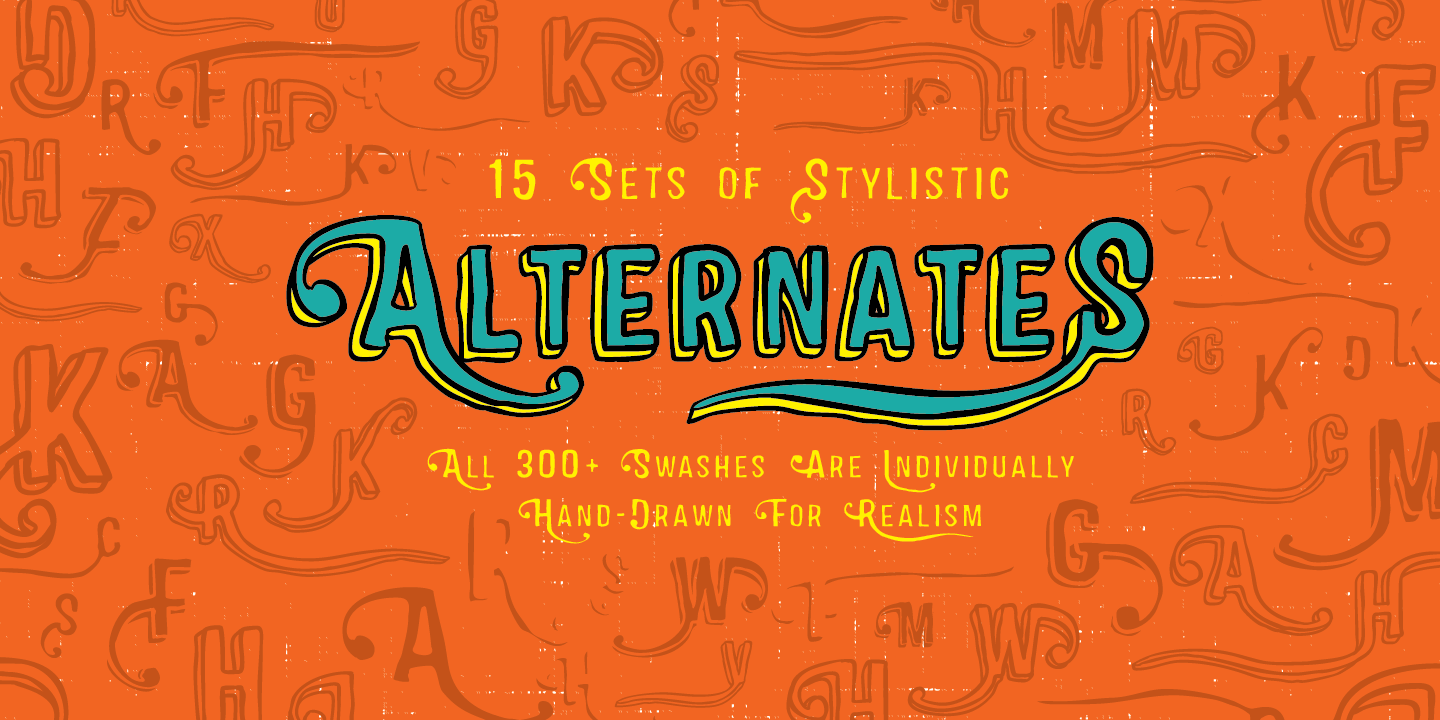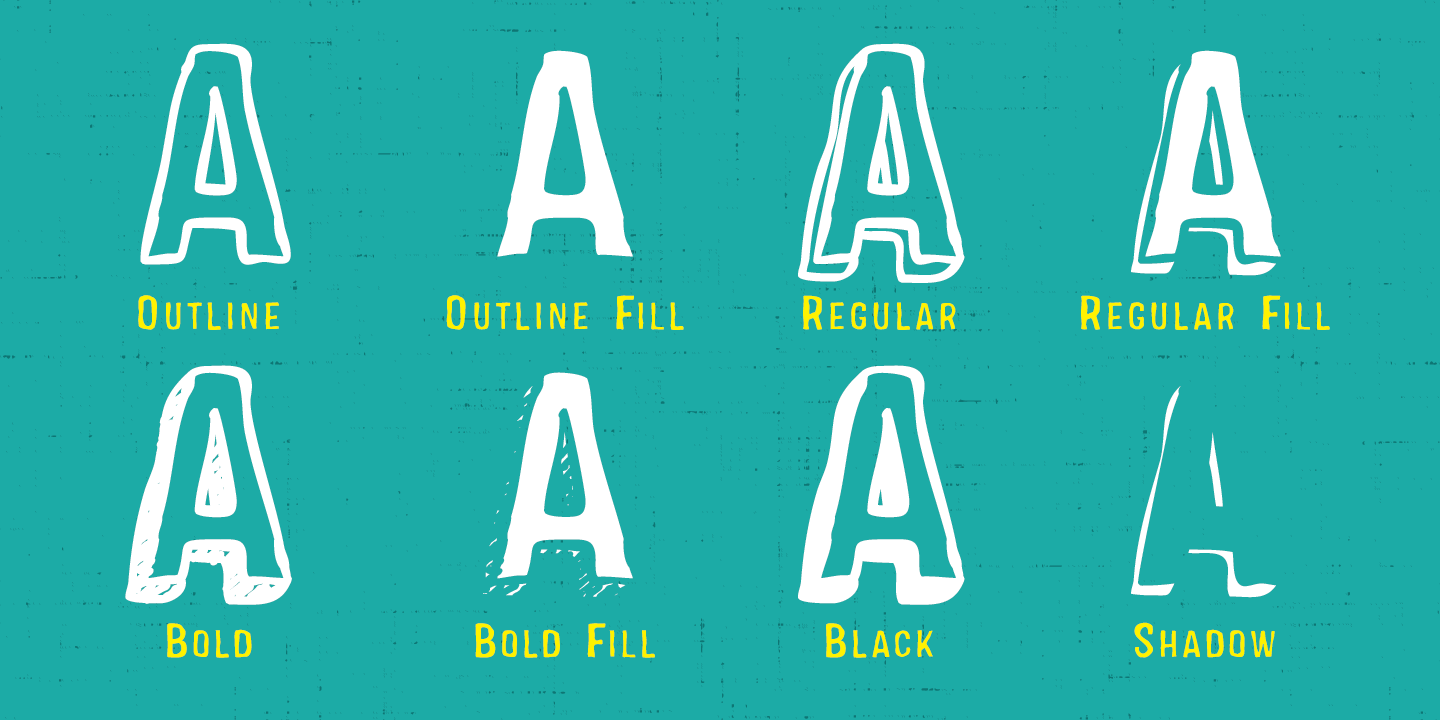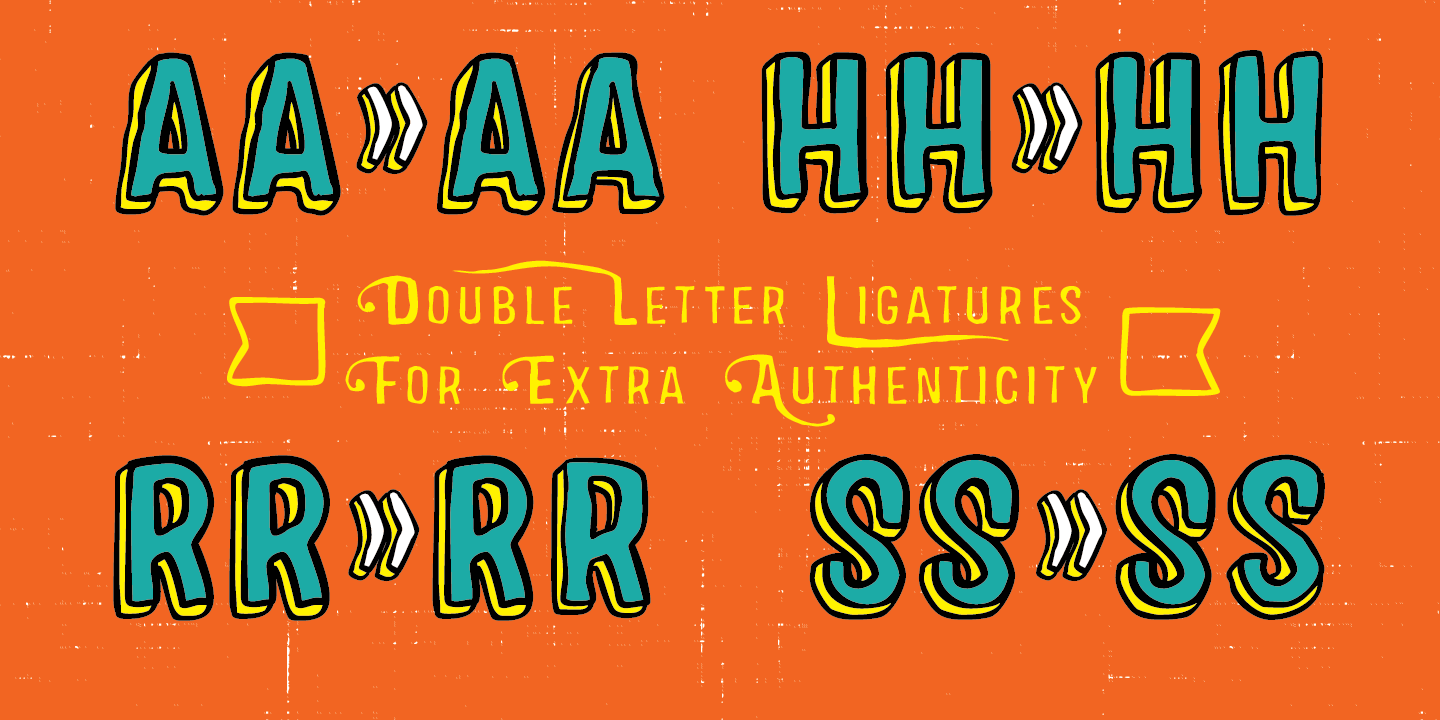
About Sparhawk
Sparhawk in it\’s obvious form is a 3D layered display font, but its packed with over 300 swashes, extremely rare in the 3D font world. Every single swash is hand drawn for extreme organic realism. The lowercase are small caps and the swashes are designed…